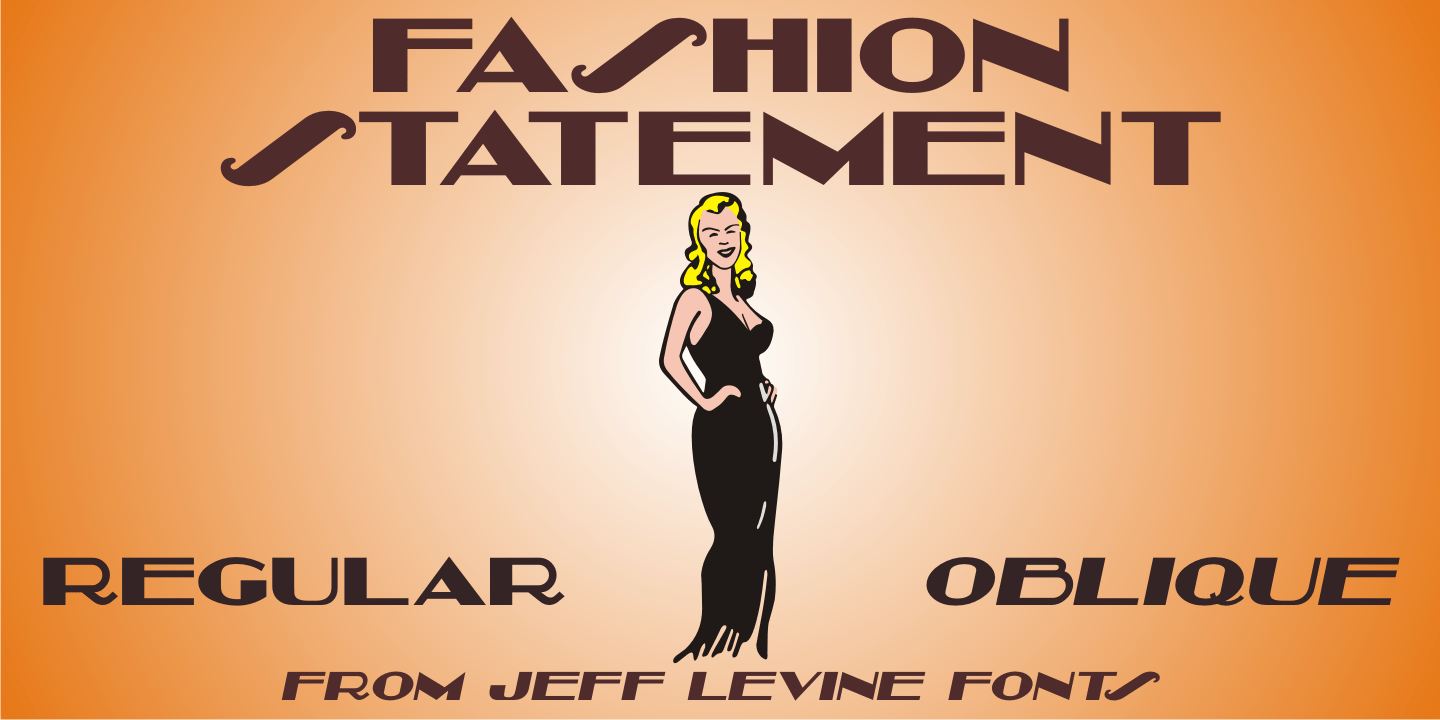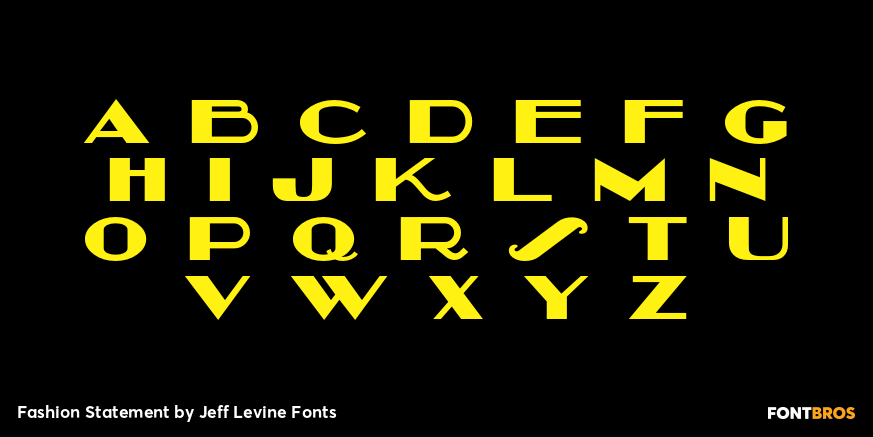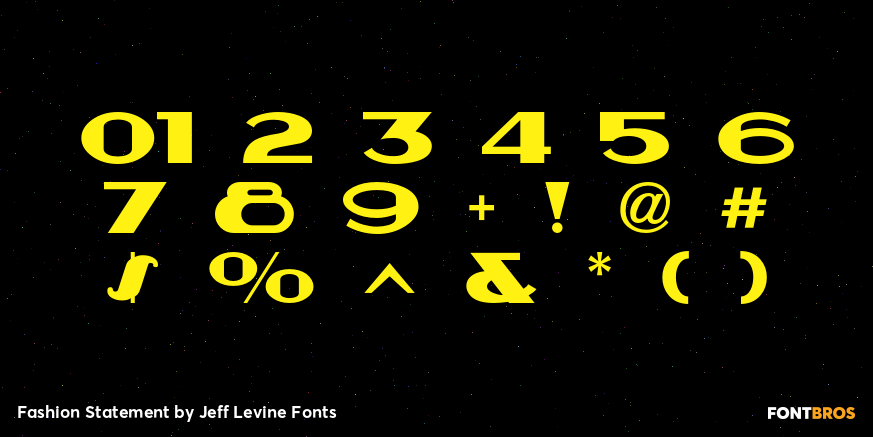
Fashion Statement
An example of hand lettering from a vintage instructional book was the basis for Fashion Statement JNL; available in both regular and oblique versions.
This extra-wide 'thick and thin” design is perfect for replicating the classic signage and print work of the Art Deco era.
Fashion Statement by Jeff Levine Fonts